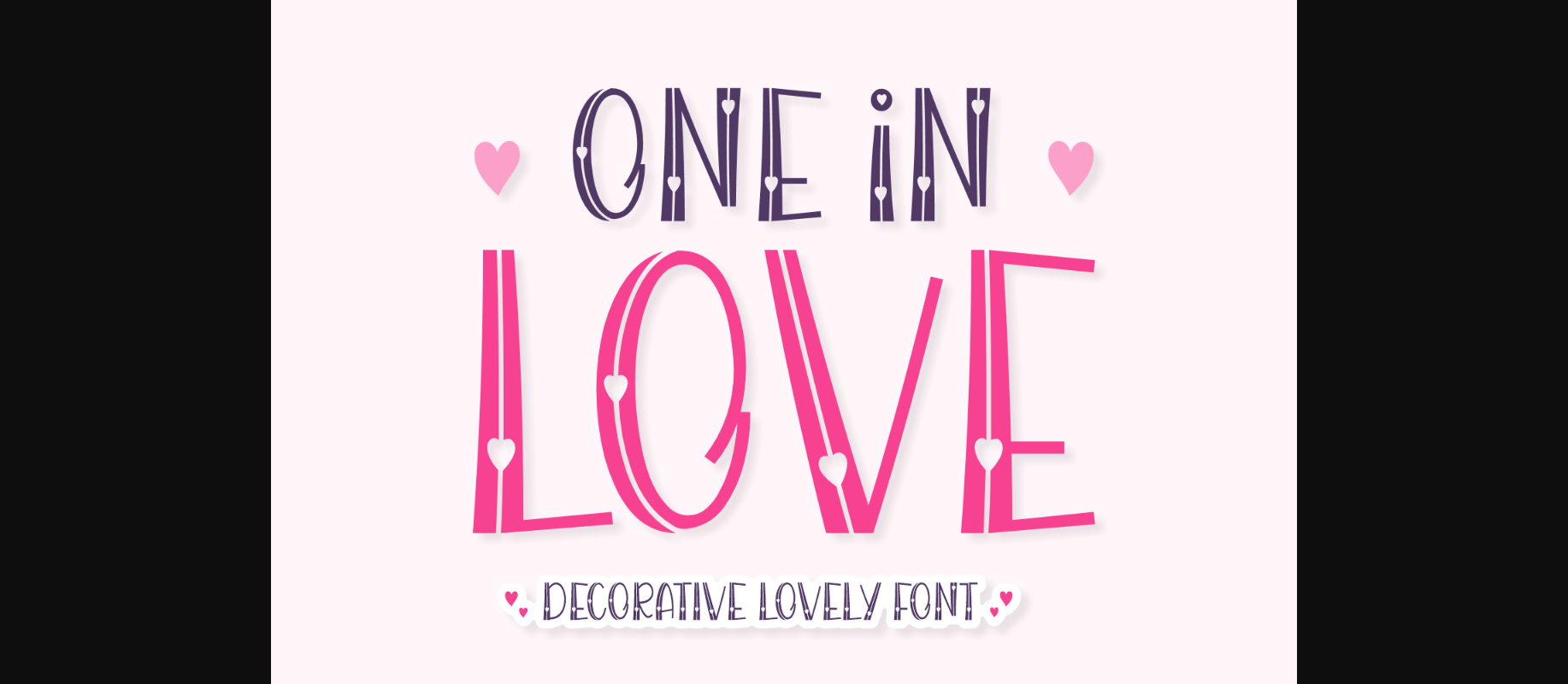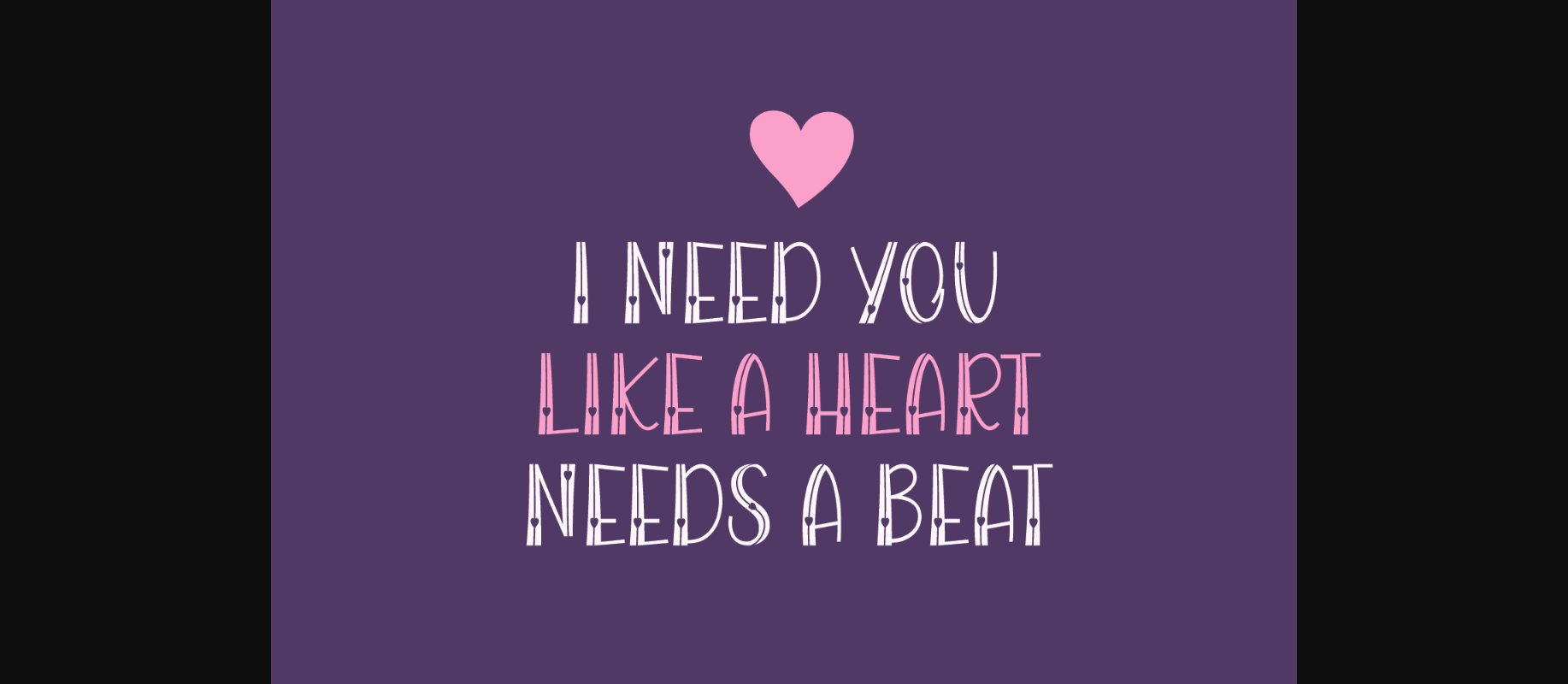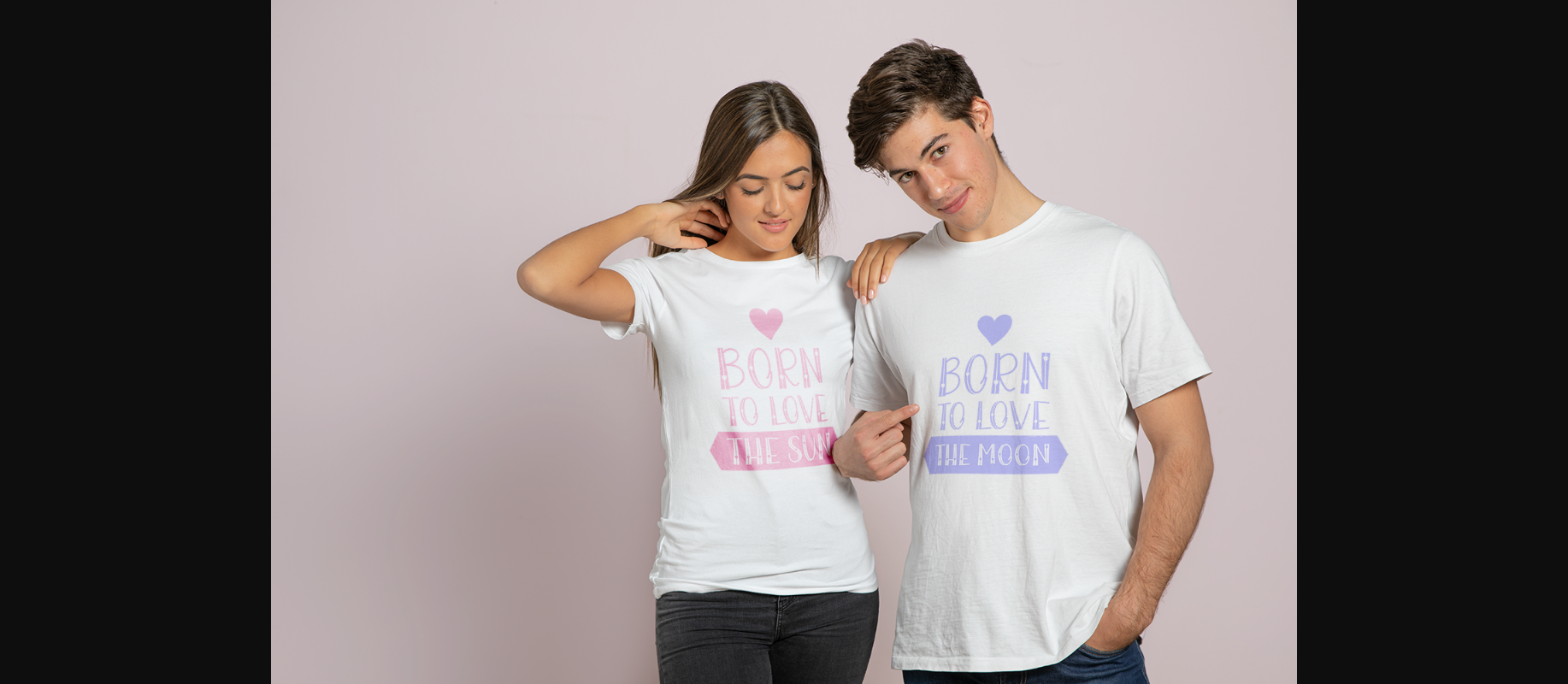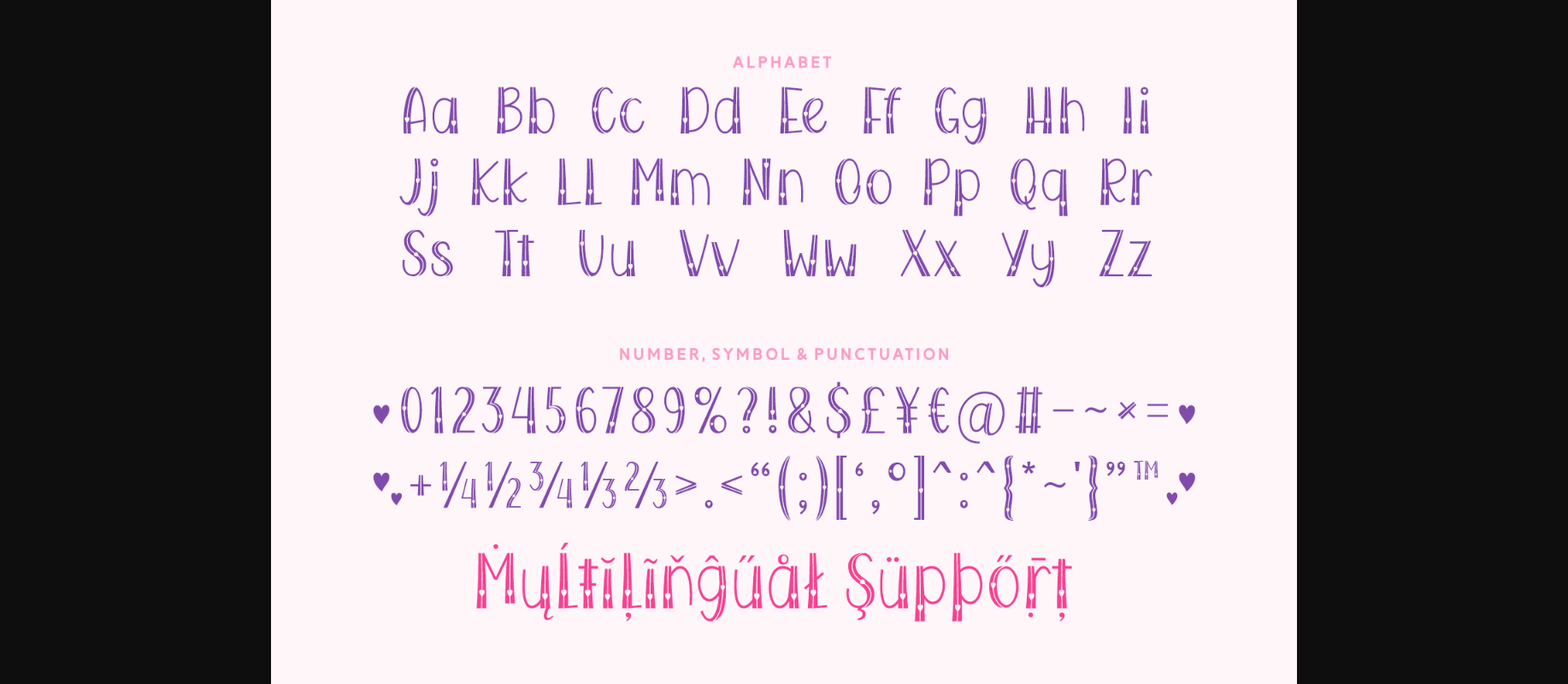
One in Love is a lovely decorative font. This lined typeface features pretty heart details, and it’s perfect for Valentine cards, wedding invitations, save-the-date cards, matching t-shirts, logos, quotes, and banners.